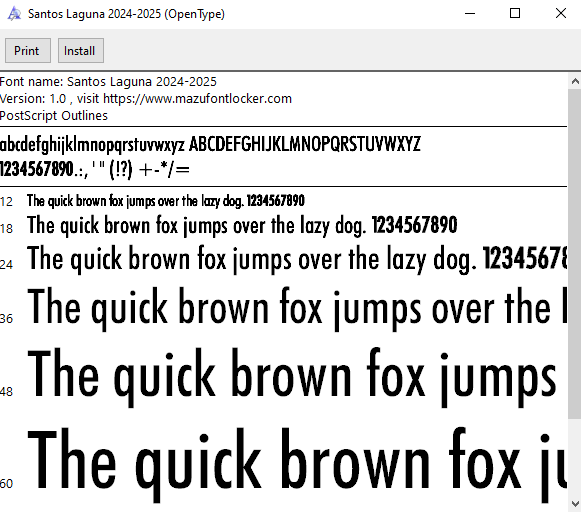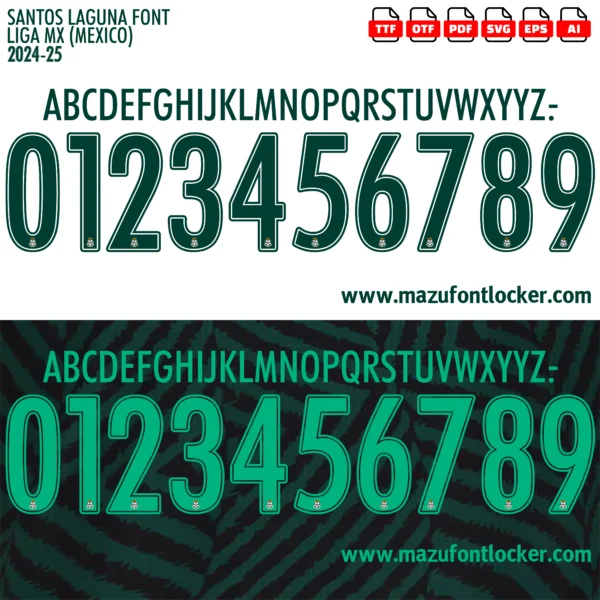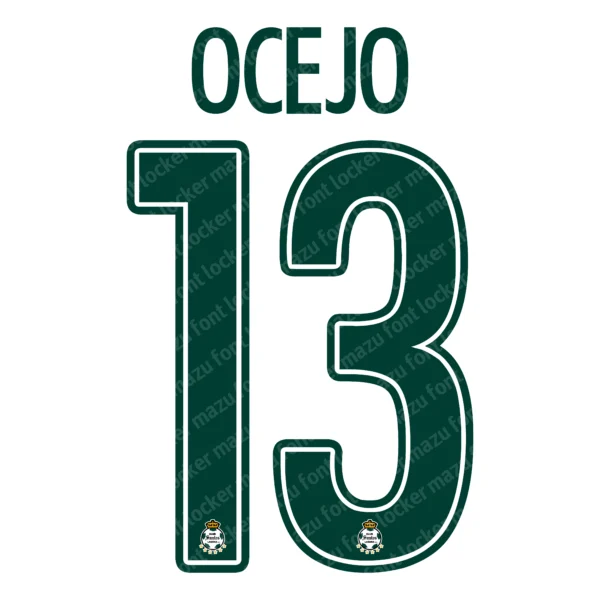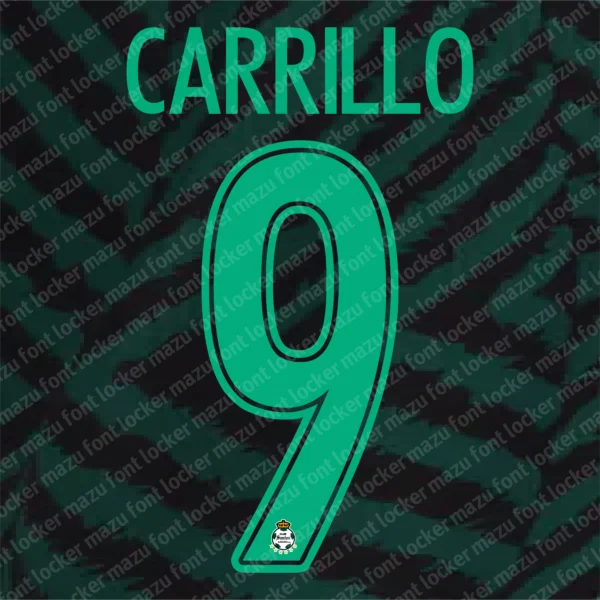
Santos Laguna 2024-2025 Font Vector – Stunning Guerreros Masterpiece
This font captures the commanding, steel-sharp, lightning-strike, and precision-engineered lettering that perfectly embodies Santos Laguna’s iconic club identity, proud Torreón and Comarca Lagunera heritage, legendary green-and-white tradition, never-surrender attitude, and raw Mexican football power — delivering unmatched authenticity, premium quality, explosive energy, and elite Liga MX intensity for professional jersey mockups, dynamic football graphics, premium sports branding, passionate fan creations, and high-end design projects.
Santos Laguna 2024-2025 Font Vector – Powerful Guerreros Green & White Typeface
The Santos Laguna 2024-2025 Font Vector is a premium typeface that accurately recreates the distinctive match lettering associated with Club Santos Laguna during the 2024-2025 football season. This high-quality vector font kit captures the bold, clean, and instantly recognizable typography that perfectly complements the club’s iconic green and white identity.
This font stands out thanks to its precise vector construction and authentic club-inspired styling. Every letter and numeral has been meticulously recreated to match the distinctive football lettering aesthetic associated with Santos Laguna during the 2024-2025 Liga MX season, including the Apertura 2024 and Clausura 2025 campaigns. The club’s 2024-2025 season also included participation in the Leagues Cup 2024.
Whether you’re producing professional football kit templates, custom jersey concepts, or eye-catching football content, the Santos Laguna 2024-2025 Font Vector delivers a genuine match-ready appearance inspired by the identity of the Guerreros.
The lettering featured in the Santos Laguna 2024-2025 Font Vector combines clean geometric lines with bold modern proportions. The result is a premium and highly readable typeface that reflects Santos Laguna’s proud football heritage, distinctive green and white colors, and passionate fanbase.
• Complete uppercase A–Z alphabet and numbers 0–9 in authentic Santos Laguna 2024-2025 inspired style
The Santos Laguna 2024-2025 Font Vector is inspired by the distinctive football typography and visual identity associated with this campaign, making it an excellent choice for designers creating custom jersey concepts, football posters, squad graphics, matchday artwork, and fan-made projects.
The Santos Laguna 2024-2025 Font Vector is an independently designed typeface package inspired by the official shirt lettering and visual identity associated with Club Santos Laguna during the 2024-2025 football season. It has been carefully recreated for football enthusiasts, graphic designers, collectors, jersey creators, and fans producing custom football concepts, digital artwork, and fan-made projects.